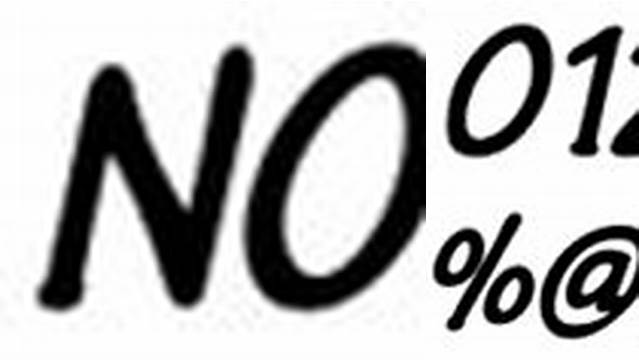
Norb Sketch Bold Italic Font: Free Download & Guide
Norb Sketch Bold Italic Font: Your Guide to Free Downloads and Creative Uses
Hey everyone! Today, we're diving into the awesome world of fonts, specifically the Norb Sketch Bold Italic font. This font is super cool because it's got that handwritten, sketchbook vibe that's perfect for a ton of different projects. And the best part? You can find Norb Sketch Bold Italic font free download options, making it accessible for everyone from casual crafters to seasoned designers. So, let's get into the details, shall we?
Unveiling the Norb Sketch Bold Italic Font
First things first, what exactly is the Norb Sketch Bold Italic font? Well, as the name suggests, it's a typeface that mimics a sketched style. It's got a bold weight, meaning the strokes are thick and easily visible, perfect for making a statement. The italic style adds a touch of slant, which gives it a dynamic and energetic feel. Think of it as a font that's both friendly and attention-grabbing, all rolled into one neat package. The design of this font is reminiscent of something you'd see in a real sketchbook, maybe hastily scribbled down ideas or thoughts. This unique characteristic makes it a great choice if you want to add a personal, hand-drawn element to your designs. The Norb Sketch Bold Italic font is not only visually appealing but also incredibly versatile. It's well-suited for various applications, and its free availability makes it a go-to option for many. It's like having a secret weapon in your font arsenal that you can use to spice up any project. The font's bold and italic combination adds a visual interest that sets it apart from other fonts. It's a great choice if you're looking to add emphasis or draw attention to specific text elements. Plus, it's easy to read, even at smaller sizes, so you don't have to worry about it being illegible. Whether you are a graphic designer, a student, or a small business owner, this font can bring a new dimension to your visual communications. Many designers turn to this font to bring a more personal feel to their work, whether it's for invitations, posters, logos, or social media graphics. The font is designed to provide an authentic hand-drawn look, which can be especially effective in branding or marketing to add a personable and approachable element. The font's style also provides a friendly and artistic vibe, which goes well with different types of content, from blog posts and website banners to flyers and brochures. All in all, it's a design tool that can boost your creativity and enhance any project, making it more visually appealing and unique. What's even better is that you don't need any fancy software to use it; it integrates well with most design tools, including Canva, Adobe Photoshop, and Microsoft Word.
Creative Uses for the Norb Sketch Bold Italic Font
Now, let's get to the fun part: figuring out how to use this amazing font! The Norb Sketch Bold Italic font is incredibly versatile, which makes it ideal for many different projects. First off, it's perfect for creating a hand-drawn look in your designs. Imagine using it for logos, branding, or any time you want a personal touch. Think of the font as a tool to add personality to any project, whether it's a simple social media post or a complex design for a business. It is exceptionally suitable for adding an element of authenticity to your designs. Next, consider using it for headings and titles. Because it's bold and italic, it's a natural fit for grabbing attention. This is especially useful for website headers, blog post titles, or even flyers. The bold style will make your text stand out, while the italic slant adds a dash of style. If you're a creative person, this font can be an absolute game-changer. Use it for invitations, posters, greeting cards, or even your own personal artwork. It adds a unique, handmade touch that's sure to impress. The Norb Sketch Bold Italic font also excels in social media graphics. It adds a friendly and engaging element to your posts. Design eye-catching quotes, announcements, or even product descriptions that will capture your audience's attention. In essence, this font allows you to design posts that resonate with your audience. In terms of other uses, you can use it to design website banners, giving your website a unique and eye-catching appearance that reflects your brand's personality. It's also a great choice for creating stylish and memorable presentations. Use it to create visually appealing slides that keep your audience engaged. Its unique character will also help you generate attractive business cards, ensuring that your brand stands out from the crowd. You can also bring your documents to life by creating visually appealing documents. The font's adaptability makes it an ideal choice for all sorts of applications, making your projects both appealing and unforgettable. Play around with it, experiment, and find out what fits your style. The possibilities are really endless. This is what makes this font so special. It's a tool that helps you to express yourself creatively and make your designs look amazing.
Tips and Tricks for Using the Norb Sketch Bold Italic Font
Okay, guys, let's get into some pro tips to make sure you're getting the most out of your Norb Sketch Bold Italic font. First, remember to consider the context. This font has a specific vibe, so make sure it matches the overall tone of your project. If you're going for a clean, professional look, this might not be the best choice. But if you're aiming for something fun, playful, or personal, it's spot on! Second, pay attention to the kerning and spacing. Kerning is the space between individual letters, and it can make a big difference in readability. You might need to adjust the kerning to make the font look its best, especially at larger sizes. Spacing is also important. Make sure there's enough space between your words and lines so the text doesn't feel cramped. Experiment with different sizes. This font can look totally different depending on how big or small you make it. Try it out at various sizes to see what works best for your design. In addition to this, you can also try different colors and effects. Don't be afraid to mix and match to make your designs stand out. Consider combining it with other fonts. Sometimes, the best designs use more than one font. Pair Norb Sketch Bold Italic with a more simple font for body text to create an interesting contrast. This can make your designs more visually dynamic. Always test your designs. Before you finalize anything, show it to someone else and get their feedback. Do they find it easy to read? Does it communicate your message clearly? This can help you catch any problems before you publish your design. Lastly, remember that practice makes perfect! The more you use this font, the better you'll get at it. Keep experimenting, and you'll be amazed at what you can create. This font will help you create unique and interesting designs. In essence, mastering the font is all about practice and creativity. By keeping these tips in mind, you'll be able to create amazing designs every time.
Final Thoughts on the Norb Sketch Bold Italic Font
So, there you have it, folks! The Norb Sketch Bold Italic font is a fantastic free option for anyone looking to add a touch of personality and style to their designs. With free download options available, it's easy to get started. Remember to always be mindful of where you download it from, check the licensing, and have fun experimenting! Happy designing!